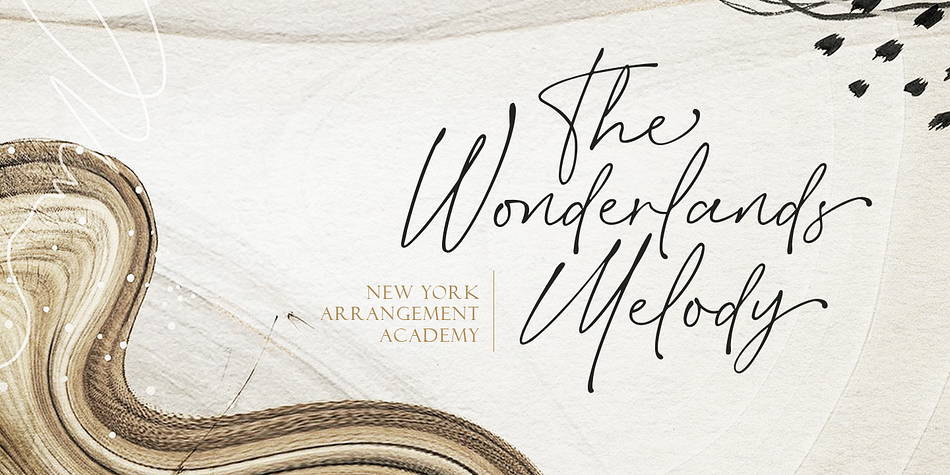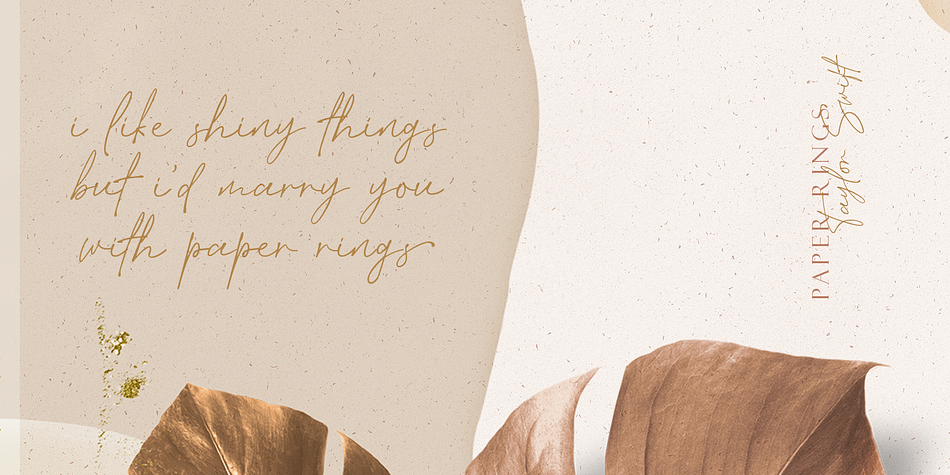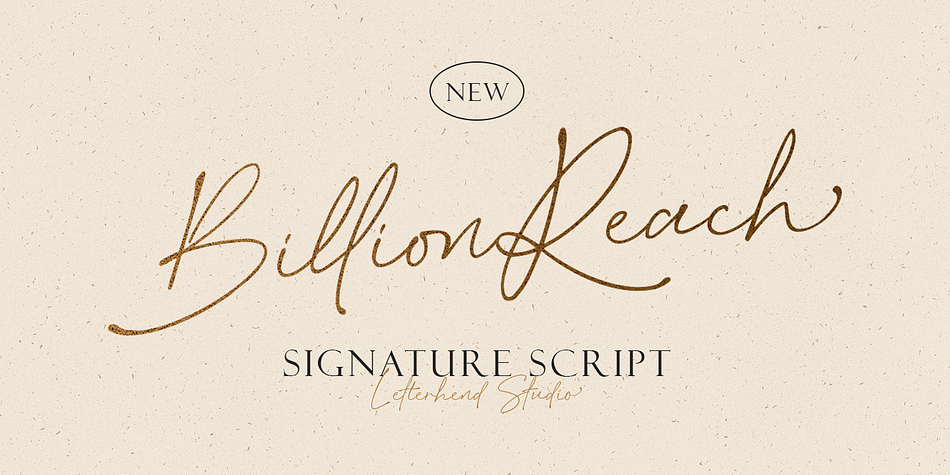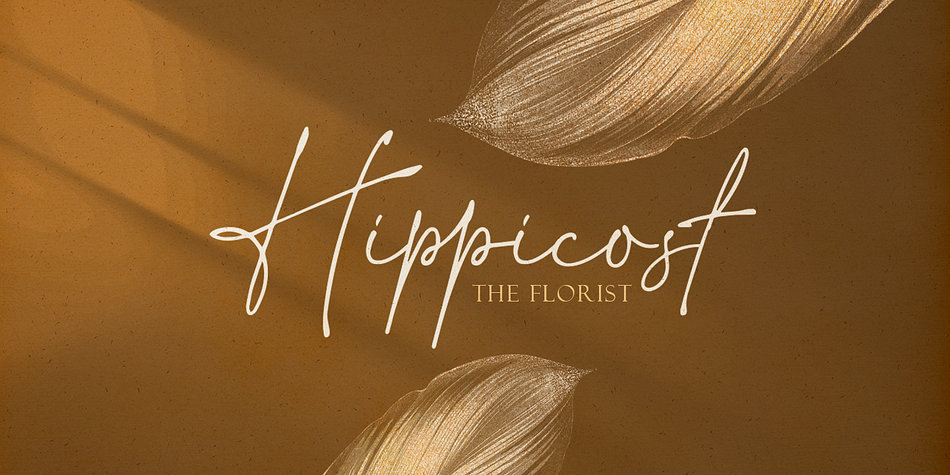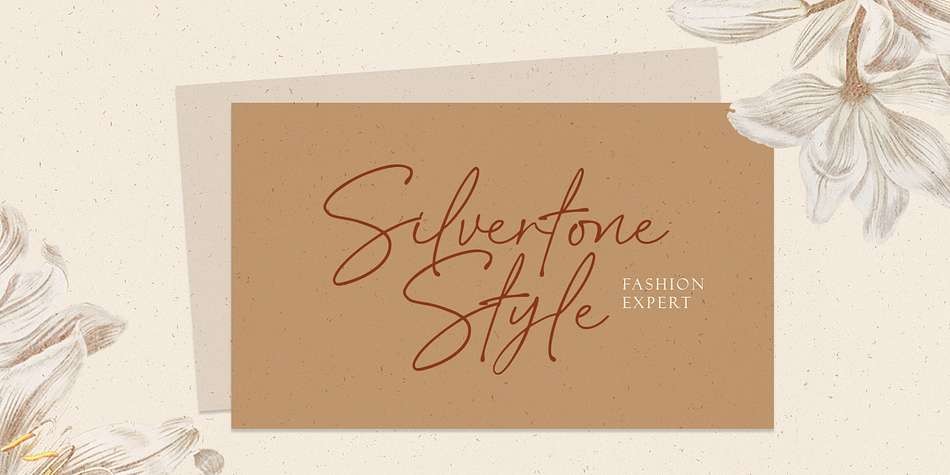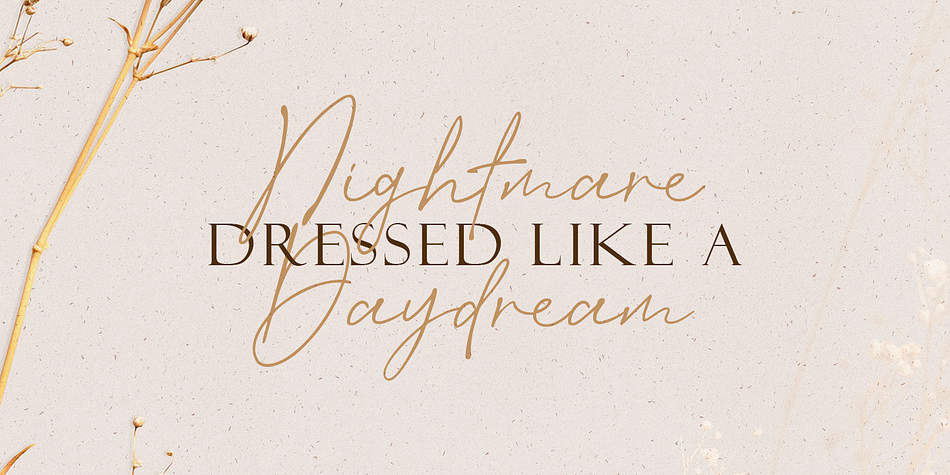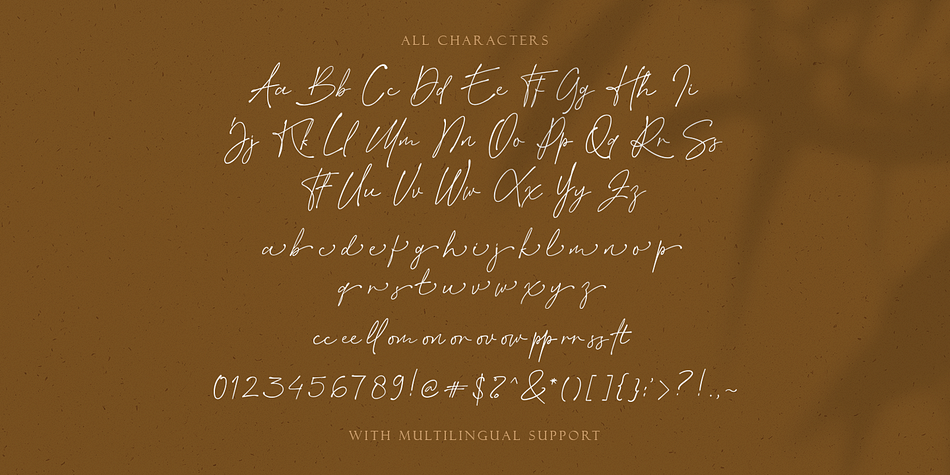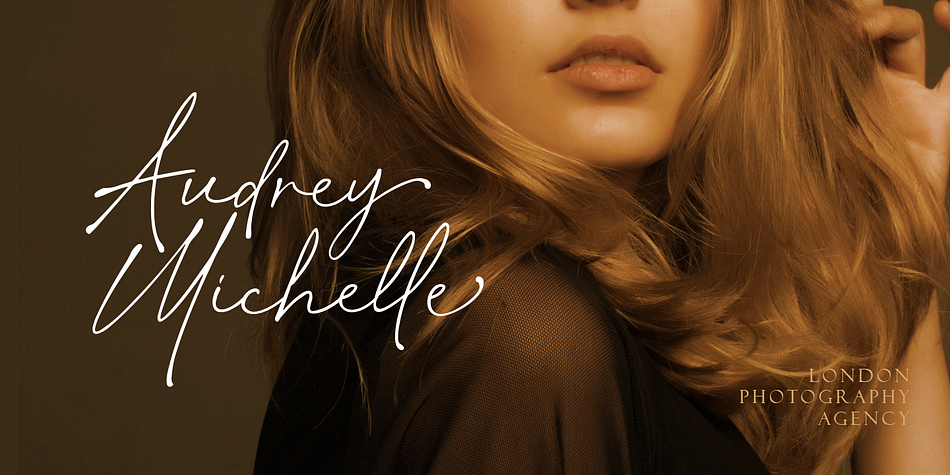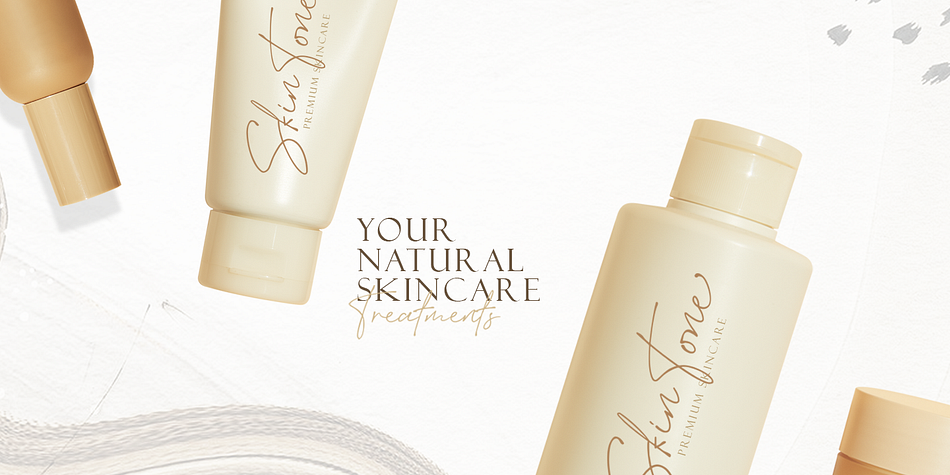
Designed by Hendry Juanda, Billion Reach is a modern calligraphy and script font published by Letterhend Studio.
Introducing, Billion Reach - A beautiful signature script based on manual hand writing. The stylistic alternate and the ligatures make this font looks a real hand writing instead of typing a font. This type of font perfectly made to be applied especially in logo, and the other various formal forms such as invitations, labels, logos, magazines, books, greeting / wedding cards, packaging, fashion, make up, stationery, novels, labels or any type of advertising purpose.
- alternates and ligatures